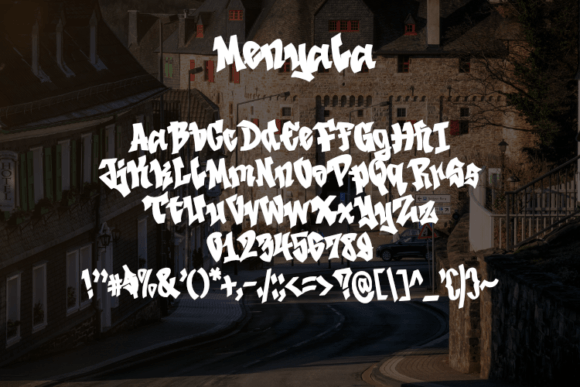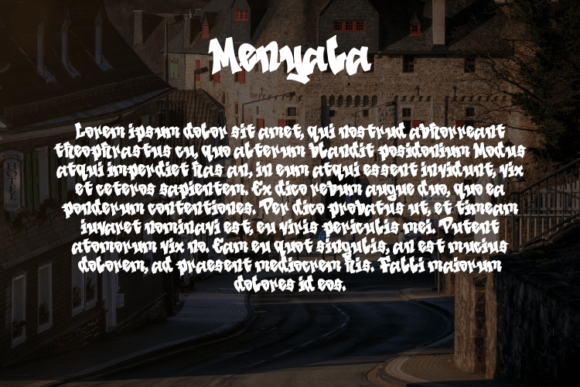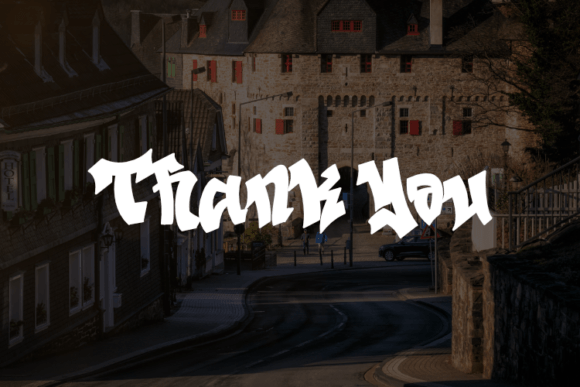
Introduction to Menyala Font
Do you remember the thrill of a creative breakthrough, when the perfect design element falls into place, and your project comes alive? For designers, moments like these are the essence of their work. But what if you had a secret toolbox, a design resource that elevates every project, making it stand out from the crowd? Enter Menyala Font, the game-changing tool that’s about to revolutionize your creative workflow.
As a valuable addition to your design arsenal, Menyala Font offers unparalleled versatility, effortlessly adapting to various design software and formats. Whether you’re working on apparel designs, t-shirt aesthetics, or other products, this high-quality font is the perfect companion, guaranteed to add a touch of sophistication to your creative project. And the best part? Menyala Font is available for free download, making it an essential resource for designers of all levels.
With its sleek curves and lines, Menyala Font is the perfect choice for designers who crave a transparent background and a professional look. Its compatibility with both otf and ttf file formats ensures seamless integration with your design software, allowing you to focus on what matters most – bringing your vision to life.
Key Features of Menyala Font
- High-quality, professional design resource ideal for creative projects
- Menyala Font is a unique and stylish design resource, perfect for adding a touch of elegance to any creative project
Honest Review: Menyala Font
As a designer, I’m always on the lookout for high-quality fonts to add some flair to my creative projects. Recently, I stumbled upon the Menyala Font, and I’m excited to share my honest review with you.
- ✨ Unique Design: The Menyala Font features a distinctive and modern design that’s perfect for adding a touch of elegance to any project.
- ✨ High-Quality: The font is crisp and clear, making it ideal for use in various design applications, from print to digital media.
However, I did encounter a few limitations: ⚠️
- ⚠️ Limited Character Set: The font only includes a limited character set, which may not be suitable for languages that require a broader range of characters.
Overall, I’m impressed with the Menyala Font’s unique design and high-quality rendering. While it may have some limitations, it’s an excellent resource for designers working on creative projects. I’d definitely recommend giving it a try – especially since it’s available for free download.
Menyala Font
Menyala Font is a versatile and high-quality design resource ideal for various creative projects. With a transparent background, it’s perfect for adding a touch of elegance to your designs.
Tips for Getting the Most Out of Menyala Font
To get the most out of Menyala Font, use it in combination with other design elements to create a cohesive and visually appealing design. Experiment with different font sizes, colors, and styles to find the perfect combination for your project.
Common Use Cases for Menyala Font
Menyala Font is perfect for a variety of creative projects, including: